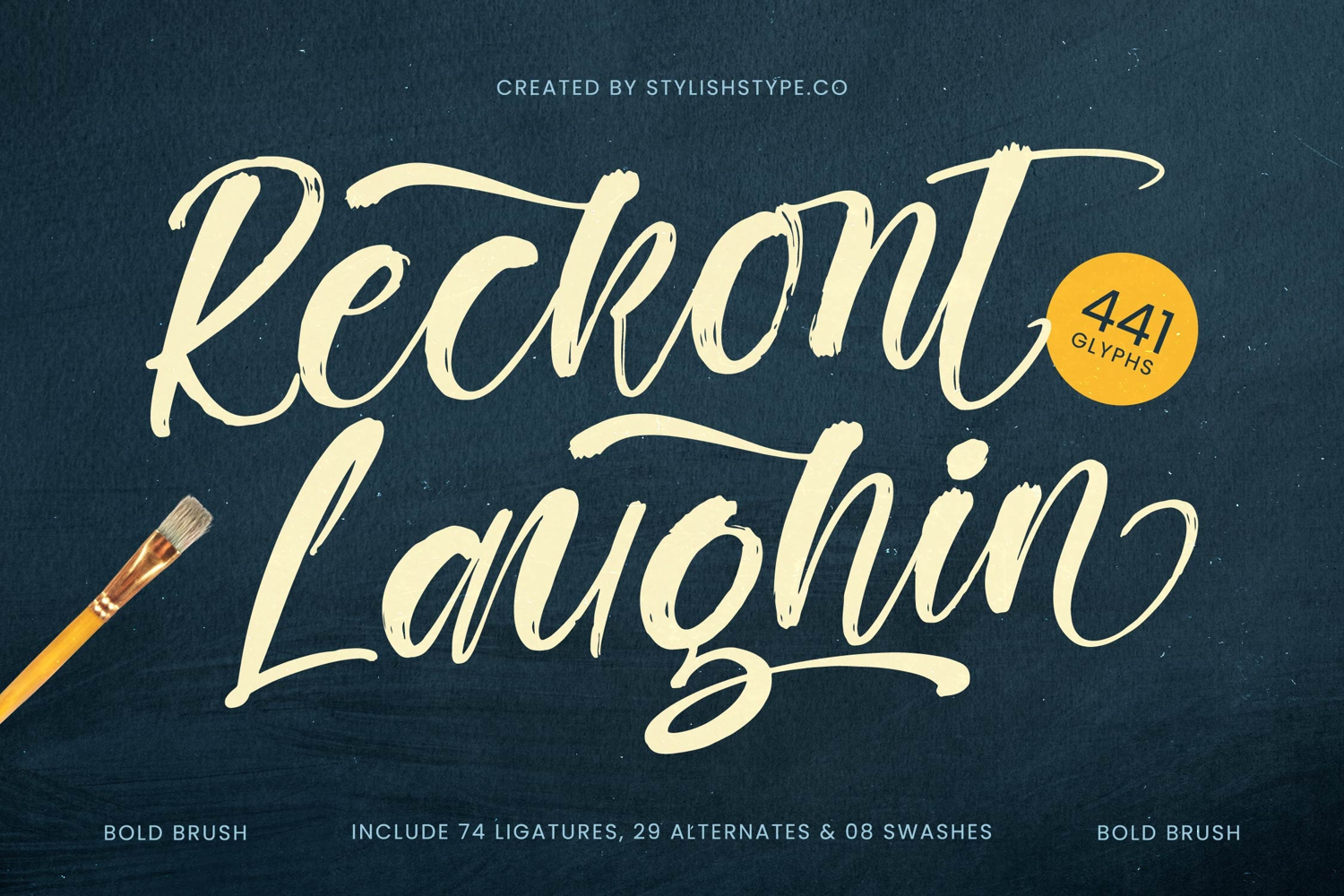
Rekont Laughin - Bold Brush Font
Rekont Laughin
Rekont Laughin Italic
Rekont Laughin - Bold Brush Font delivers an authentic, high-impact aesthetic. This dynamic script captures the raw energy of real hand-painted brushwork, offering powerful texture and a spontaneous flow that demands attention. Its heavy weight and expressive baseline ensure maximum visibility, making it the perfect choice for projects requiring a sense of handcrafted quality and immediate recognition.